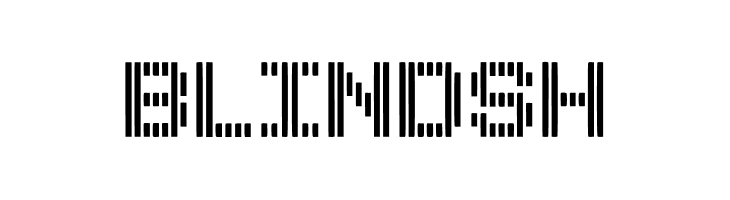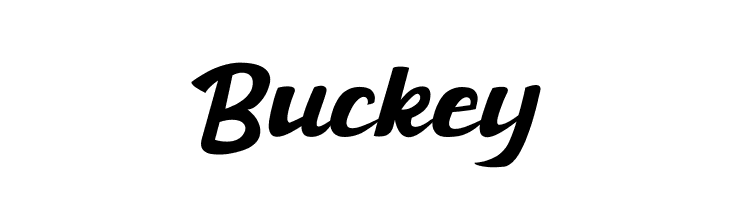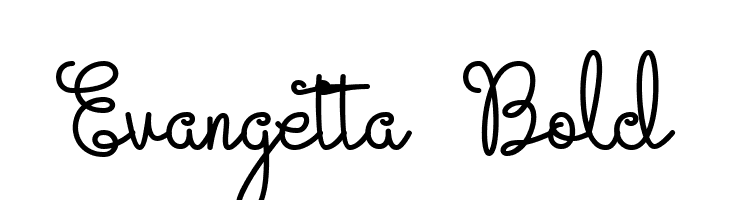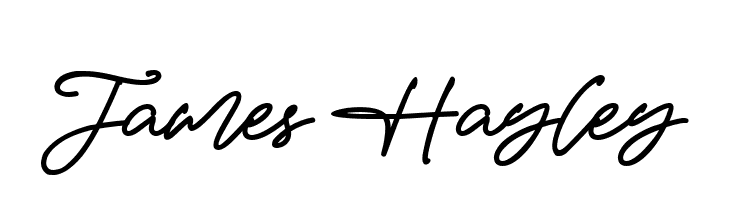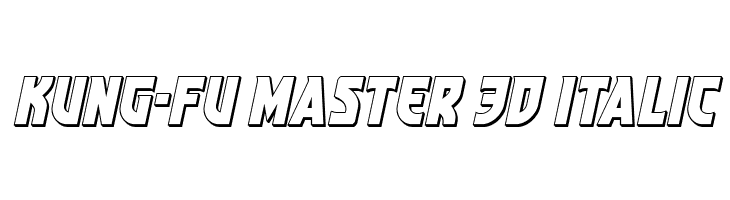
A segmented, modern font with a digital, pixelated appearance.
A dynamic and elegant script font with flowing, cursive letterforms.
A playful, handwritten font with rounded, smooth letterforms.
A bold, blocky font with high contrast and a modern, decorative style.
Expressive brush strokes with a dynamic, hand-drawn feel.
A bold, playful font with a hand-drawn, informal style.
A modern, geometric font with a digital, tech-inspired aesthetic.
A bold, condensed, and italicized font with dynamic and energetic styling.
A bold, geometric font with sharp angles and a futuristic style.
A playful, handwritten font with flowing, interconnected letterforms.